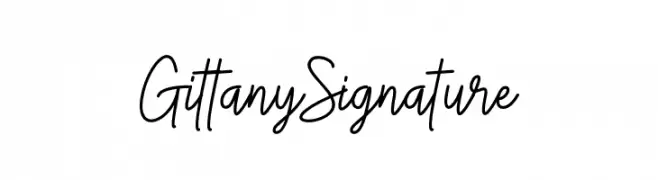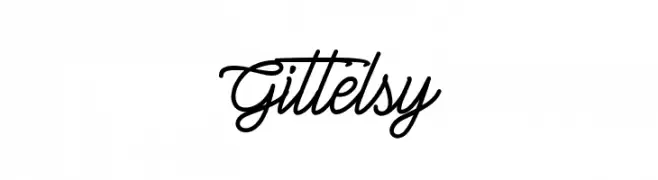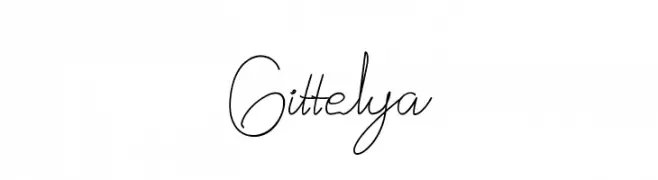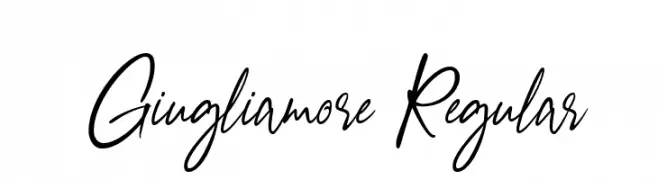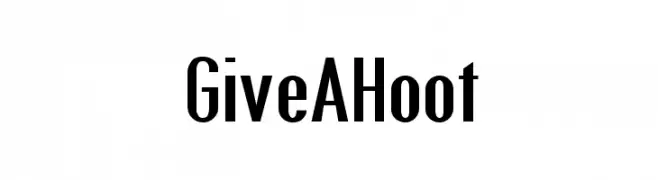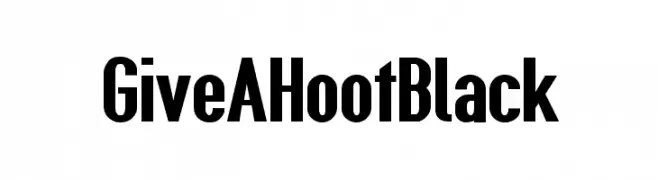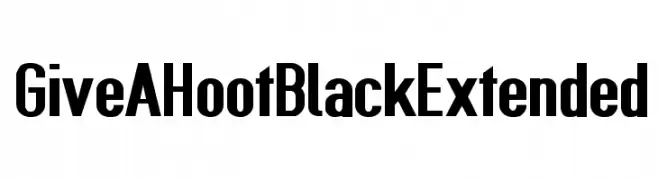
A casual, elegant handwritten font with smooth, flowing lines.
A classic and elegant script font with flowing, connected letterforms.
A graceful and sophisticated cursive script font with smooth, connected letters.
A delicate and elegant script font with flowing, cursive letterforms.
A cursive, handwritten-style font with elegant, flowing strokes.
A bold, rounded font with a playful and friendly style.
A bold, rounded font with smooth curves and consistent weight.
A bold, modern font with a slightly condensed style and clean lines.
A bold, modern font with thick, uniform strokes and a dynamic slant.
A bold, extended typeface with a modern and assertive style.